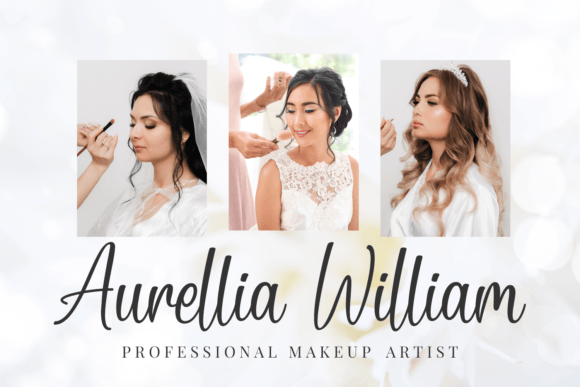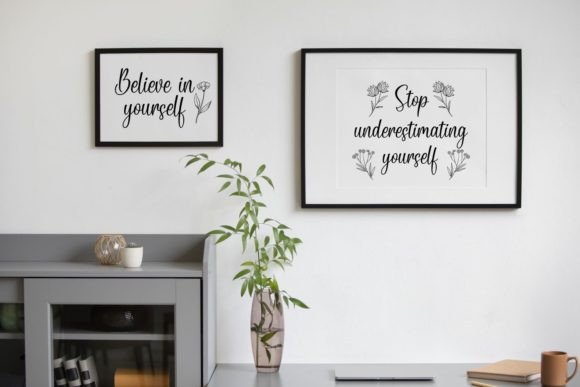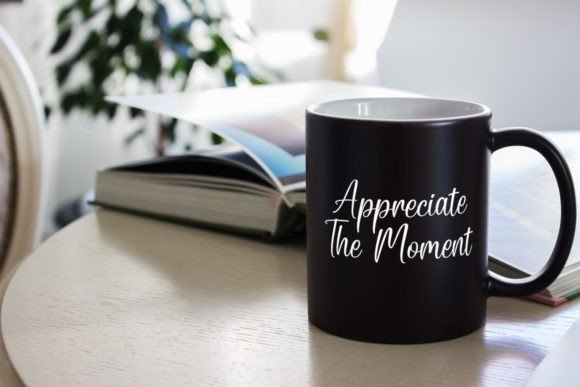
Introduction to Musthika Font
As a designer, there’s nothing quite like the thrill of discovering a new, high-quality font that elevates your creative project to the next level. For me, that moment came when I stumbled upon the Musthika Font – a stunning, elegant typeface that exudes sophistication and versatility. With its smooth, flowing lines and handwritten appearance, this font adds a touch of charm and refinement to any project, making it a valuable resource for designers looking to add some personality to their designs.
The Musthika Font is a design treasure that’s perfect for a wide range of applications, from business documents to wedding invitations and branding materials. Its classic and timeless appeal makes it a must-have for any designer looking to create high-end, professional-looking designs that stand out from the crowd. Whether you’re working on a free download or a paid project, this font is sure to impress.
Key Features of Musthika Font
- Unique, hand-drawn design with a transparent background for seamless integration
- Perfect for designers and artists working on projects requiring a touch of elegance and sophistication
Honest Review: Musthika Font
I recently stumbled upon the Musthika Font while searching for a unique design resource for my next creative project. I was impressed with the high quality of this font, which boasts a distinctive and elegant design.
One of the standout features of the Musthika Font is its transparent background, making it easy to layer over different colors and textures. This flexibility is a major plus for designers who want to add some flair to their work without the hassle of complicated design elements.
- May not be suitable for all types of projects due to its unique design
- No extensive character set, which could be a limitation for some designers
Overall, I’m impressed with the Musthika Font and would recommend it to designers looking for a high-quality, unique design element for their next project. While it may have some limitations, its strengths far outweigh its weaknesses, making it a valuable addition to any design resource library.
The Musthika Font is perfect for creative projects that require a high-quality, unique font. Use it for logos, branding, and marketing materials to make a lasting impression. You can also use it in educational materials, such as presentations and documents, to add a touch of sophistication.